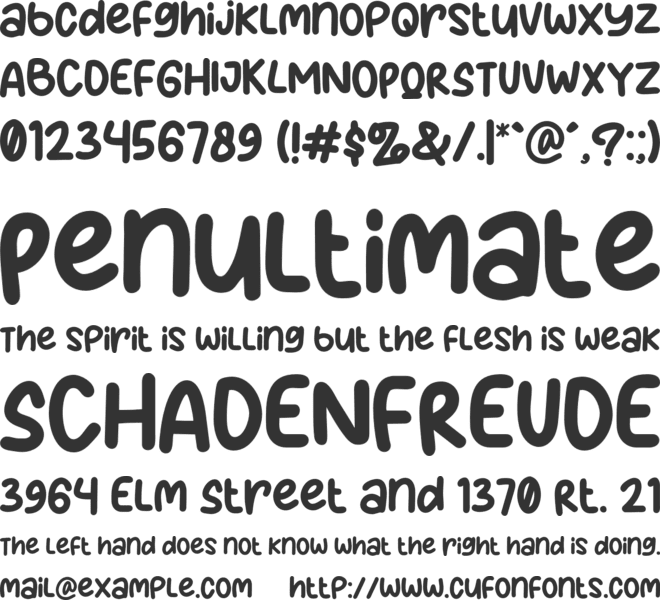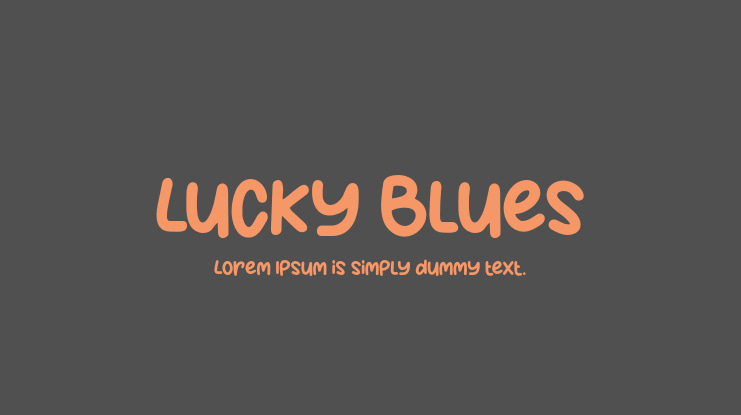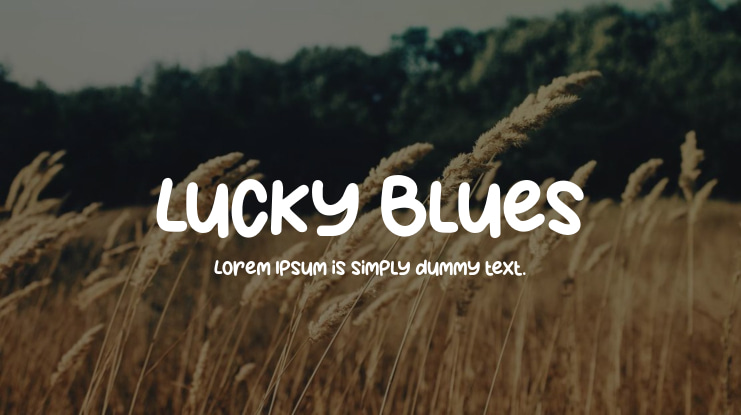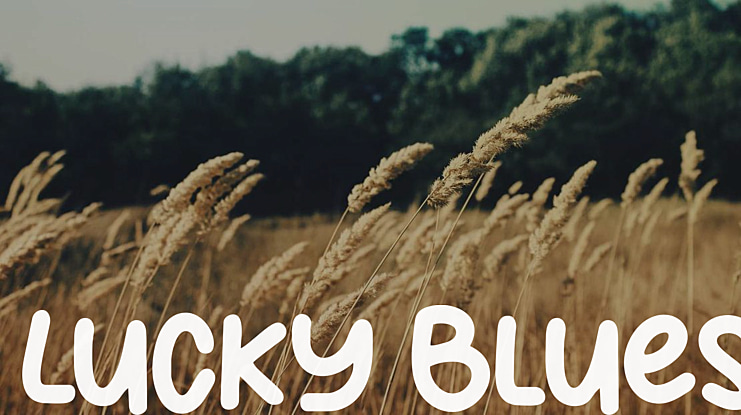
Lucky Blues Font
Lucky Blues is a fun and contemporary display font. It blends harmonious curves with a stylish aesthetic. Feel free to use it on various design projects including quotes, greeting cards, invitations, posters, business cards, presentations, and more!
Lucky Blues font preview
Lucky Blues Regular font